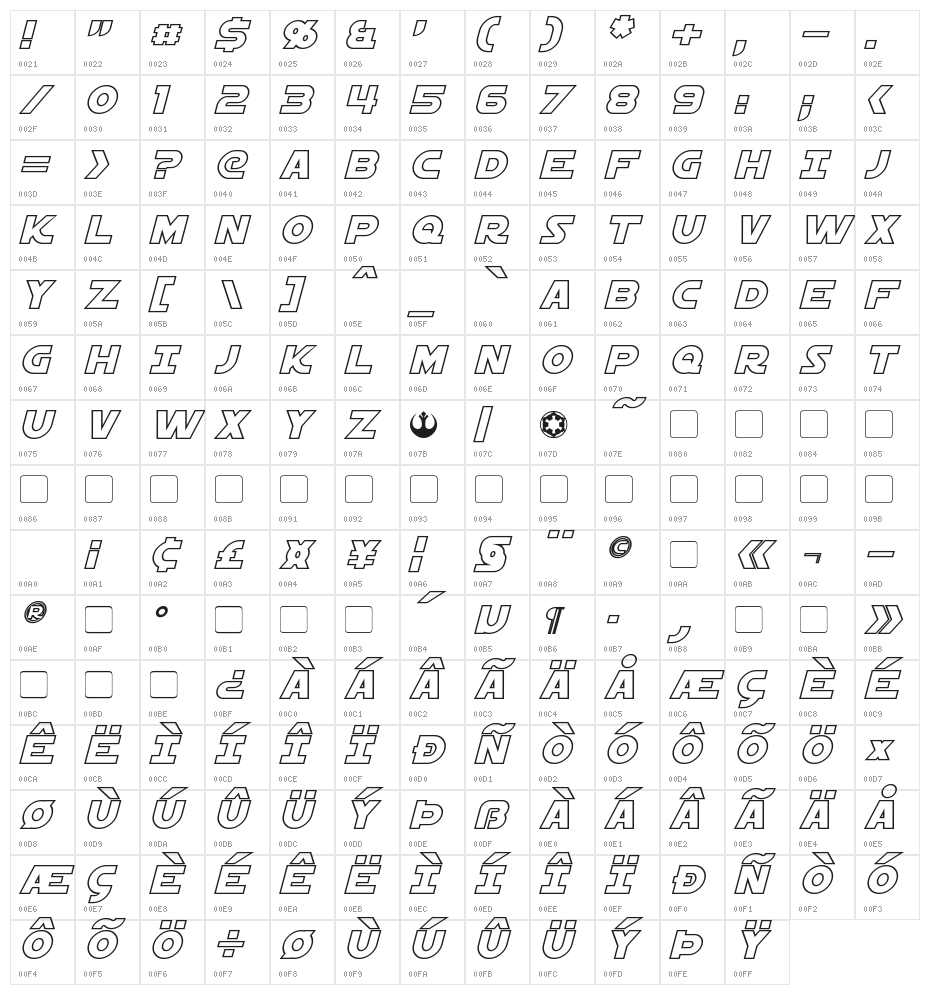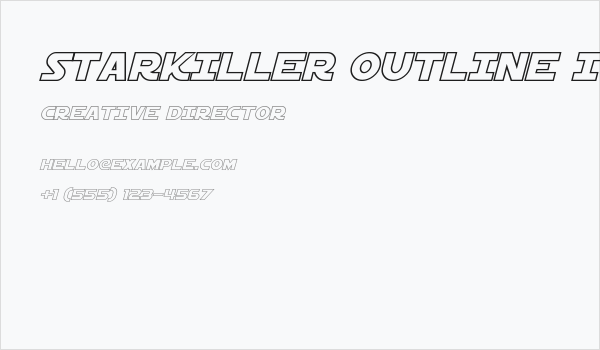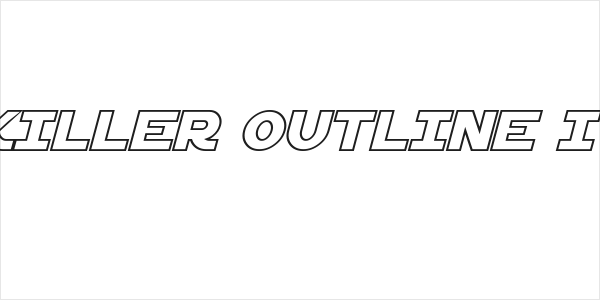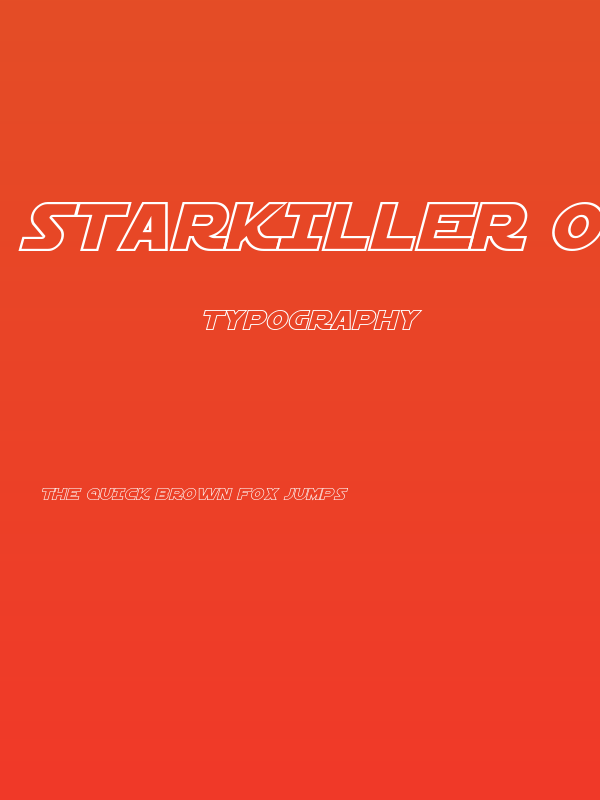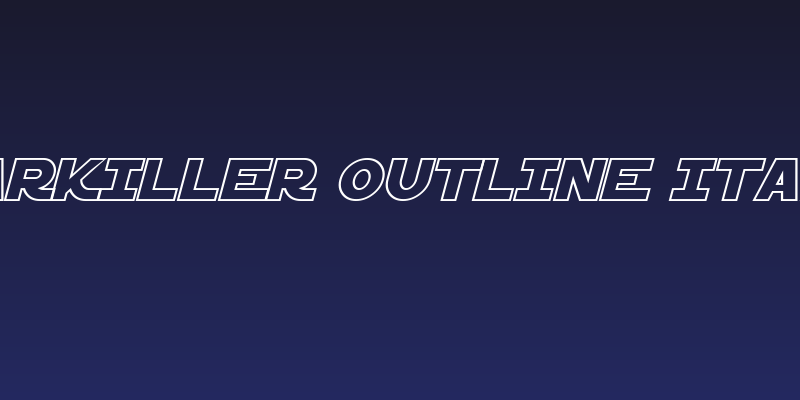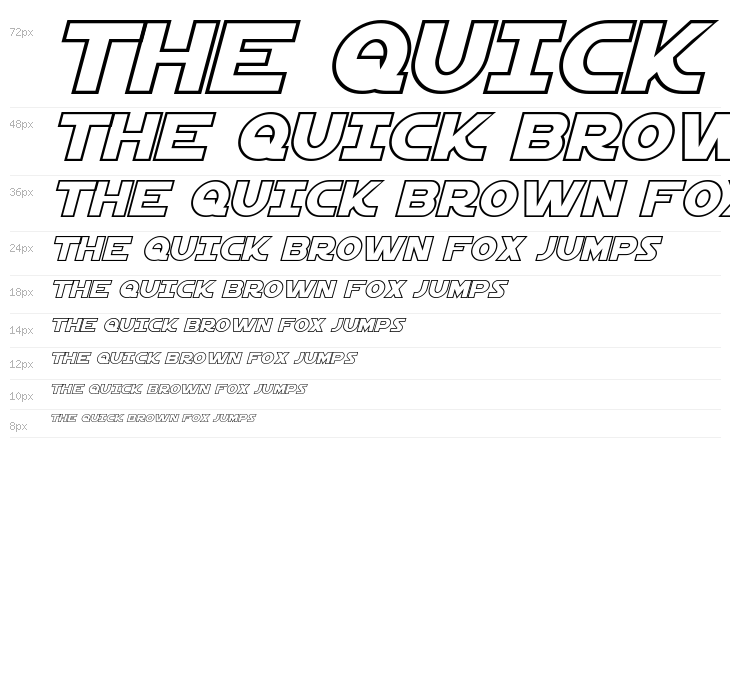
Starkiller Outline Italic Font
Starkiller Outline Italic Description
This font features a bold, outlined style with a distinct italic slant, giving it a dynamic and futuristic appearance. The characters are uppercase and numerals, each with a consistent outline that adds depth and dimension. The design is clean and geometric, with sharp angles and a uniform stroke width that maintains clarity and readability. The spacing between characters is balanced, ensuring legibility even at smaller sizes. This font is ideal for projects that require a modern and edgy aesthetic, such as sci-fi themed designs, gaming titles, or tech-related branding.
| Proposed Projects | Ideal for sci-fi themed designs, gaming titles, tech branding, and modern posters. |